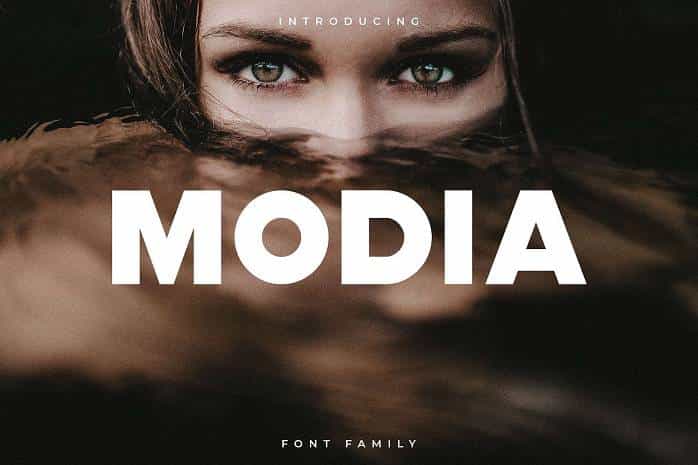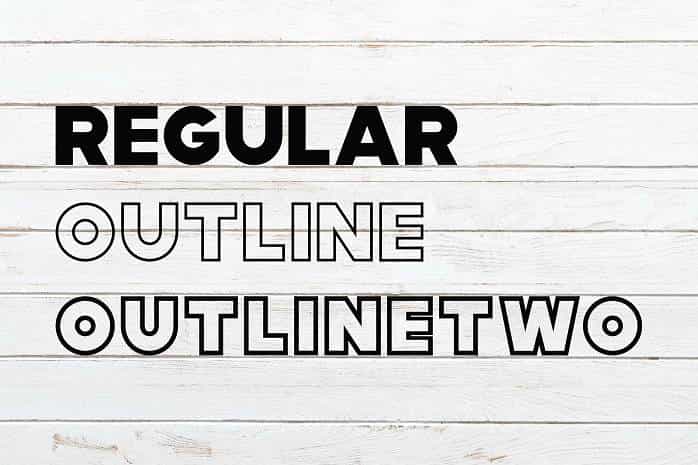
Modia Sans Serif Font Released. Modia is a powerful and pristine sans serif font. It is a multipurpose font family which is created for a strong, classic brand. Modia is awesome for all branding, logos, magazines, videos, product packaging, website headers, clothing designs and so much more.